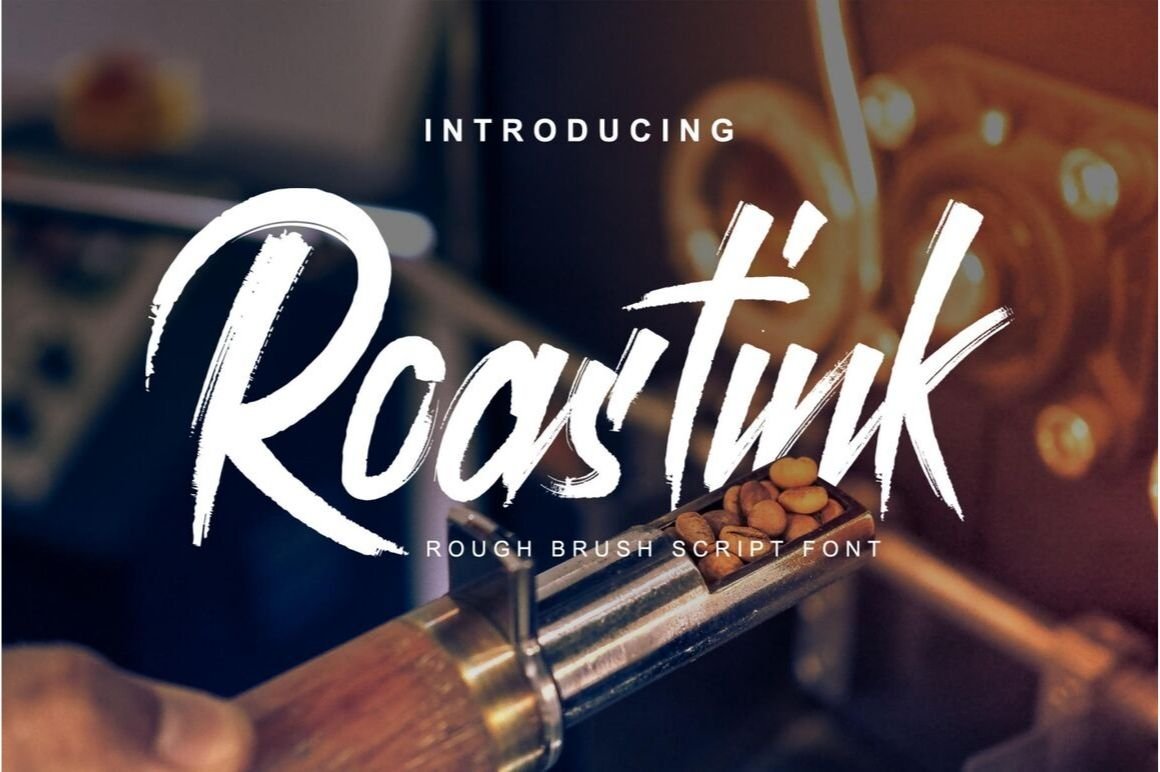
Roastink Script – Free Brush Script Font
Free Roastink Script
Roastink Script is a rough brush script commercial use font.
It comes with many opentype feature, upper and lower case standard character, punctuation and numerals, multilingual characters, ligatures, stylistic alternates, and many more glyph.
Roastink Script
Included: Uppercase & Lowercase Standard Characters, Punctuations & Numerals, Multilingual Characters, Ligatures, Stylistic Alternates, & Many More Glyphs
Perfect For: Company Logos, Branding, Posters, Flyers, Greetings, Invitations, & More